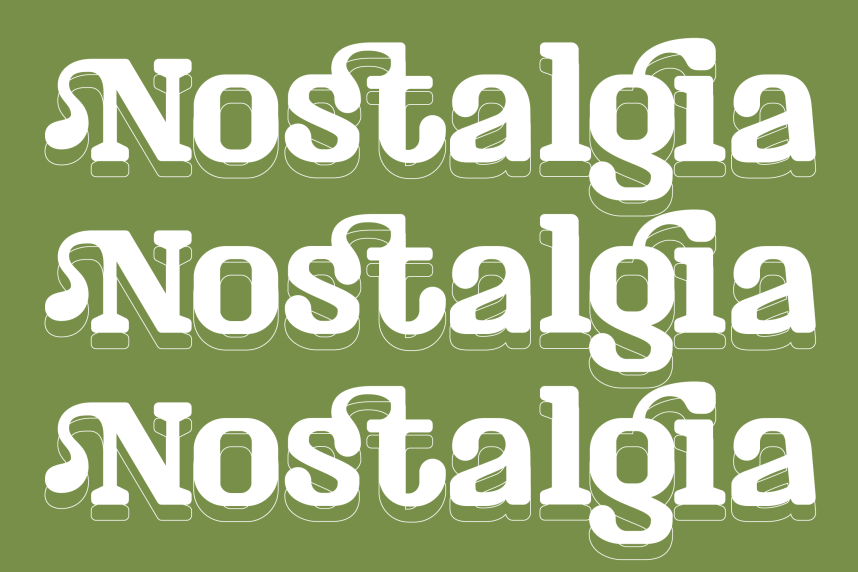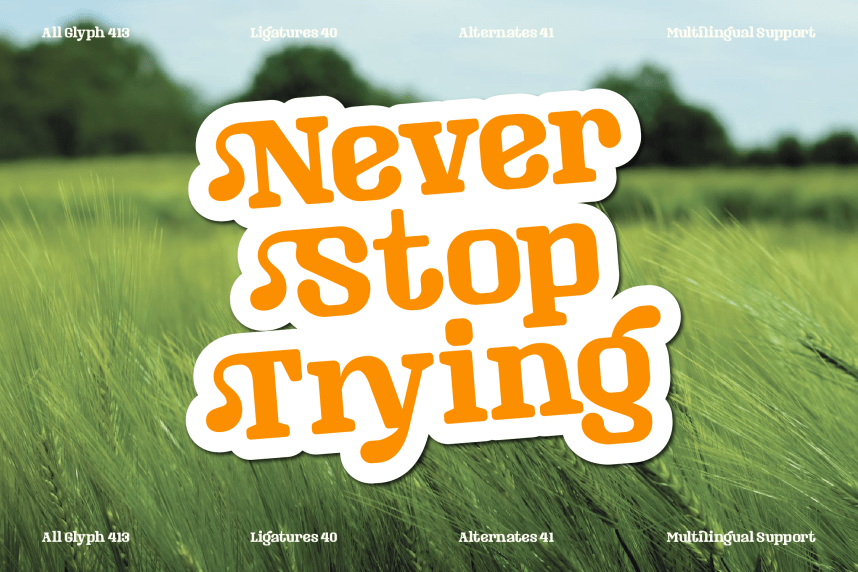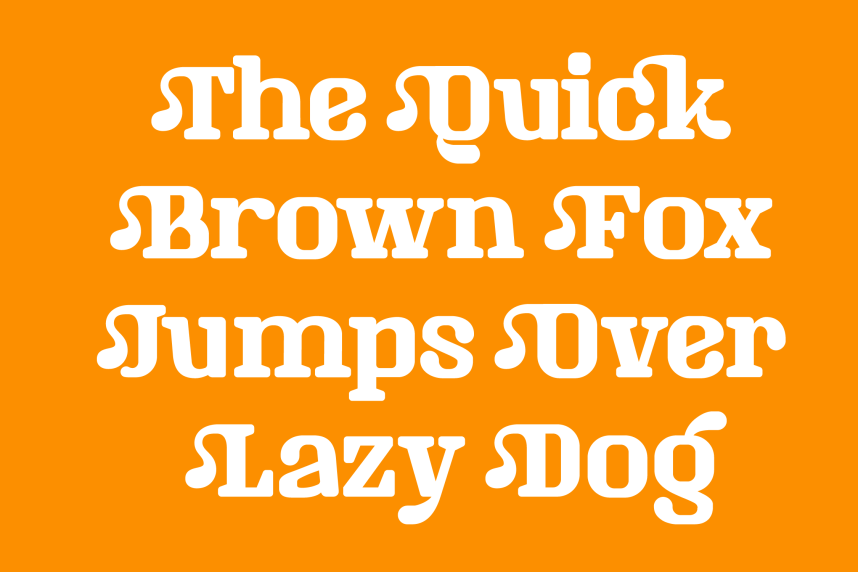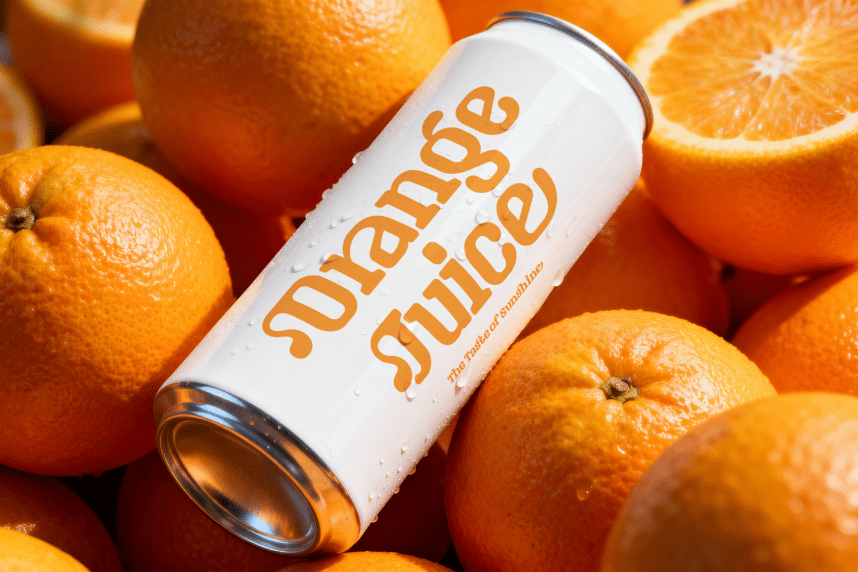
Masking Renta Font is a refined serif display typeface that blends classic elegance with a modern, confident attitude. Designed with sharp serif details and high-contrast strokes, this font creates a strong yet graceful visual presence.
Each letterform is carefully sculpted, combining smooth curves with precise edges to achieve a perfect balance between sophistication and bold character. The result is a typeface that feels timeless, polished, and distinctly premium.
Masking Renta is built for high-impact design, where typography becomes the focal point. Its elegant structure and distinctive rhythm make it ideal for creating luxurious and memorable visual identities.